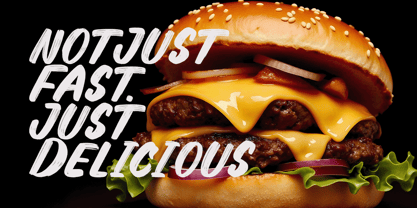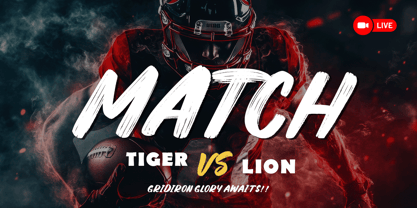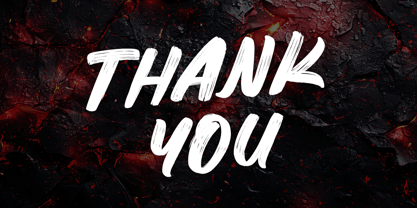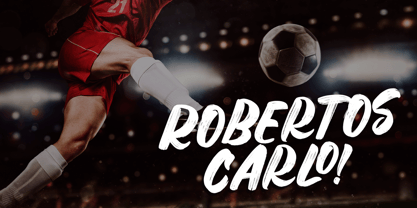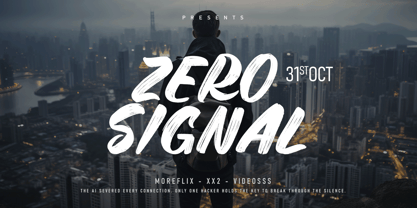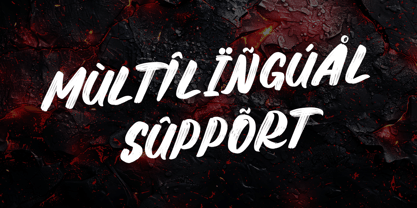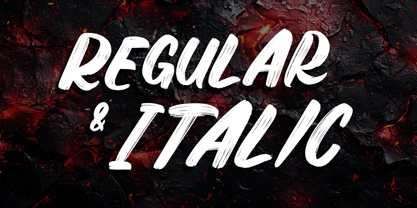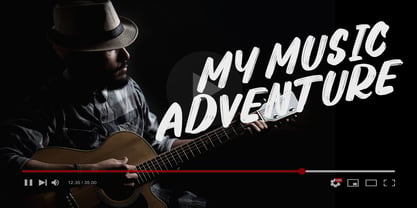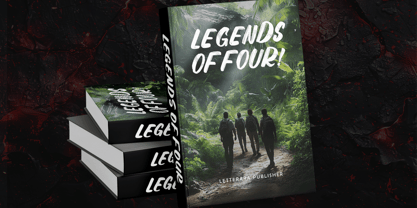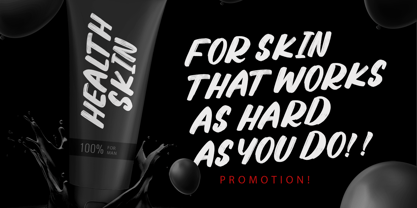
Brokster
by Letterara
The Brokster Font Family was designed by Thomas Aradea and published by Letterara. Brokster contains 2 styles and family package options. More about this family
Introducing Brokster — a bold brush font born from raw grit and wild rebellion. Every stroke of Brokster carries the energy of unfiltered expression, blending hand-drawn chaos with powerful design intent. Its rough textures and unpredictable flow deliver a rebellious vibe perfect for streetwear, music covers, bold logos, action-packed posters, and branding that craves edge and impact. Brokster doesn’t whisper — it shouts, roars, and breaks through the noise. Fully equipped with alternates and PUA encoding, this font gives you creative freedom to shape a visual identity that’s loud, raw, and unapologetically bold. Ready to break the rules? Brokster leads the charge.
Designers: Thomas Aradea
Foundry: Letterara